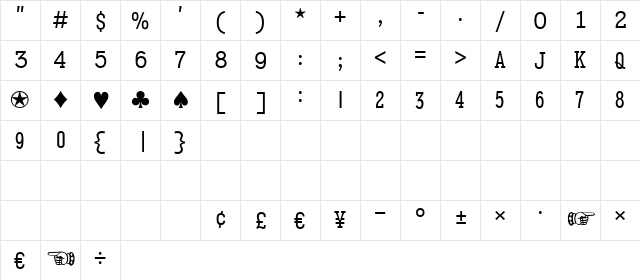
Numbers Deuce Regular
Design Context for Numbers Deuce Typeface
Numbers Deuce offers clean, dependable letterforms without strong stylistic allegiance, making it a practical choice for designers who need flexibility.
Pro Tip: Use Numbers Deuce in both headline and body roles to test its range before committing to a single application.